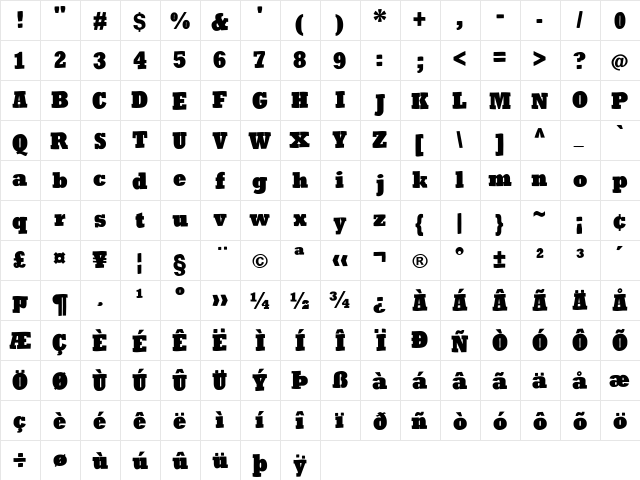
WindyCitySlab Regular
Design Context for WindyCitySlab Typeface
WindyCitySlab combines the readability of serif typography with the visual weight of a slab construction, resulting in a typeface that feels both authoritative and approachable.
Suited to magazines, political campaign materials, bold packaging, and any setting where authority matters.
Pro Tip: Use WindyCitySlab for headlines and subheadings where its slab serifs can make an impression. It also holds up well in mid-size body copy thanks to its sturdy construction.